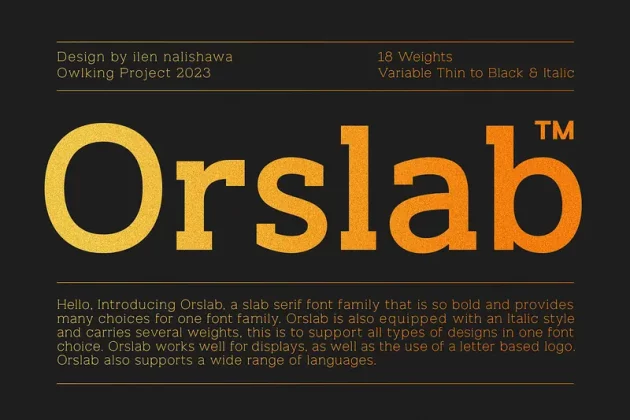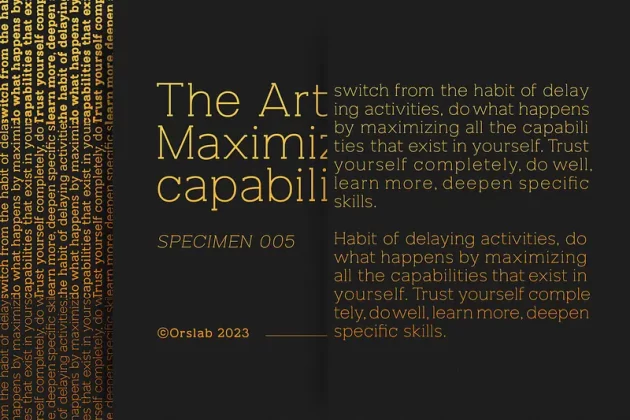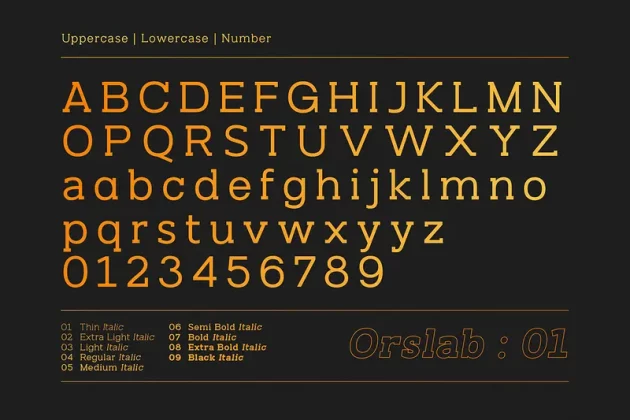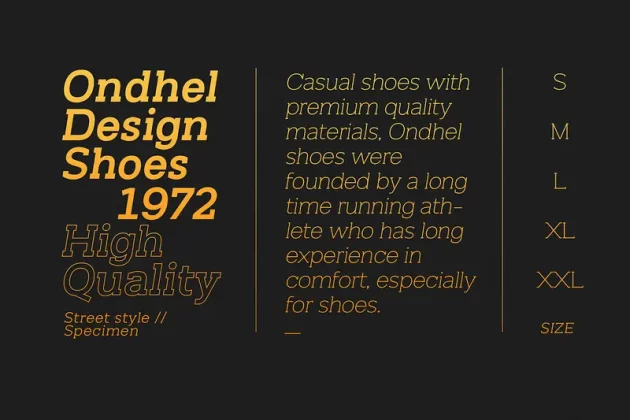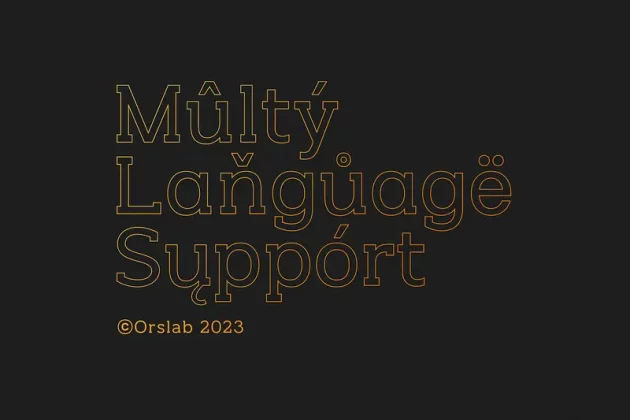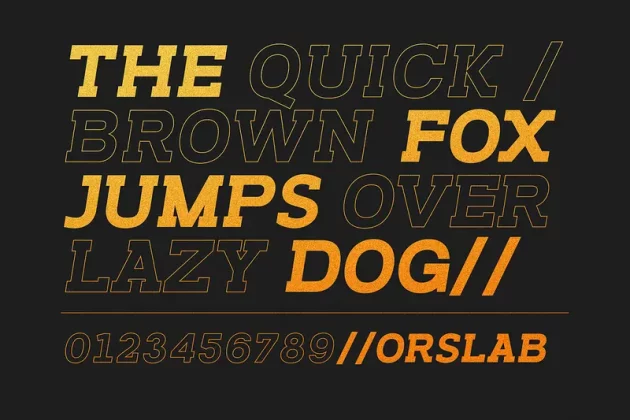
About Orslab Font
Hello, Introducing Orslab, a slab serif font family that is so bold and provides
many choices for one font family & Sporty. Orslab is also equipped with an Italic style
and carries several weights, this is to support all types of designs in one font
choice. Orslab works well for displays, as well as the use of a letter-based logo.
Orslab also supports a wide range of languages.
Orslab 18 Weights